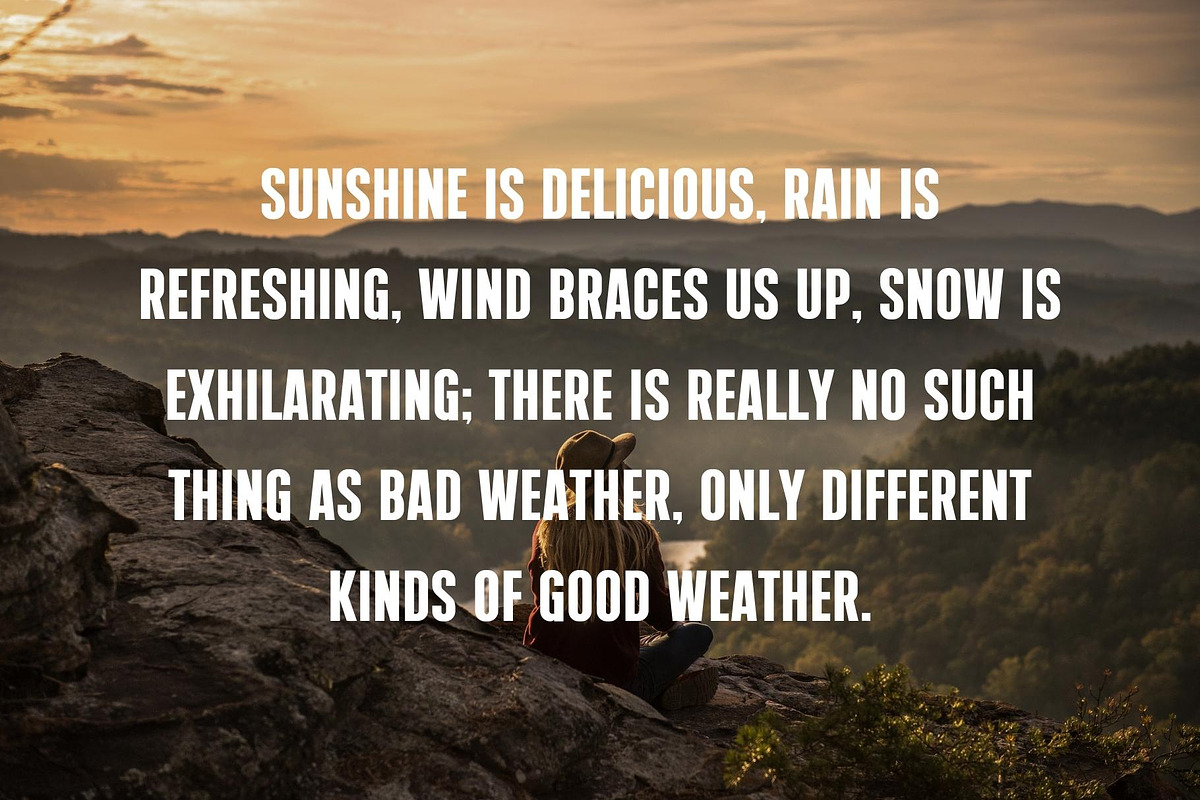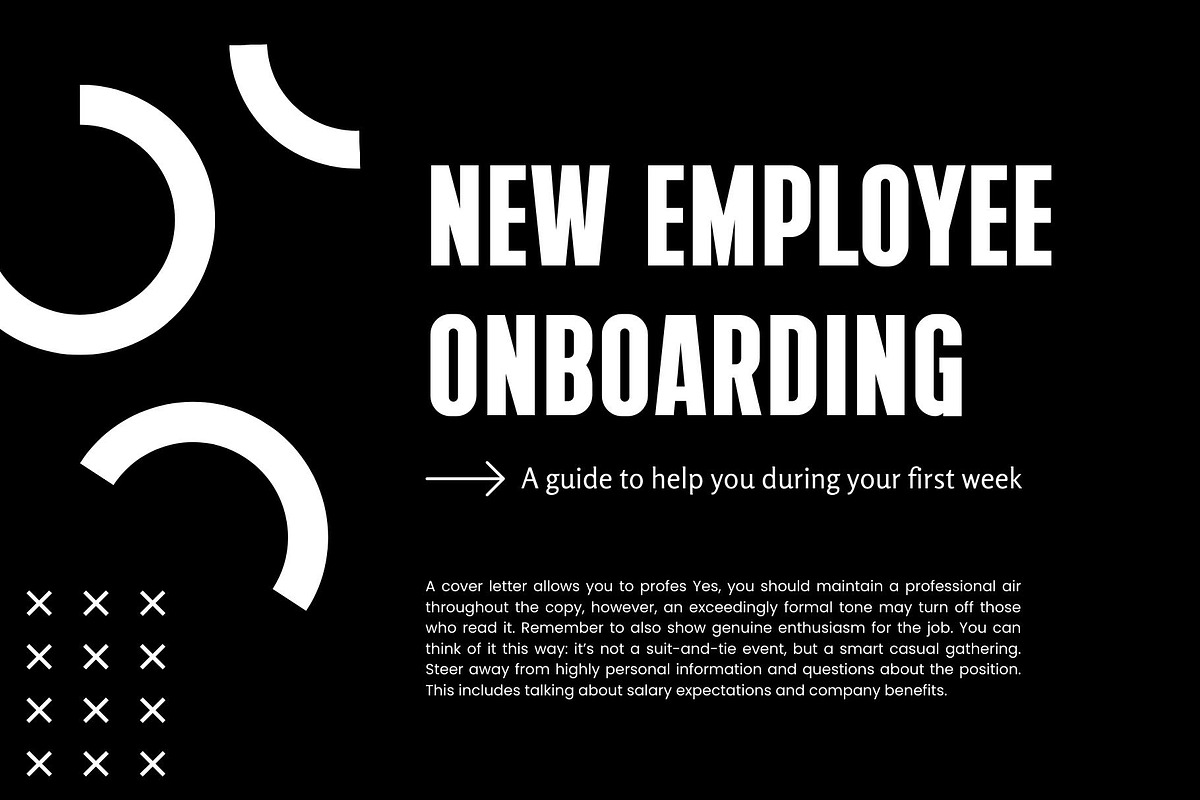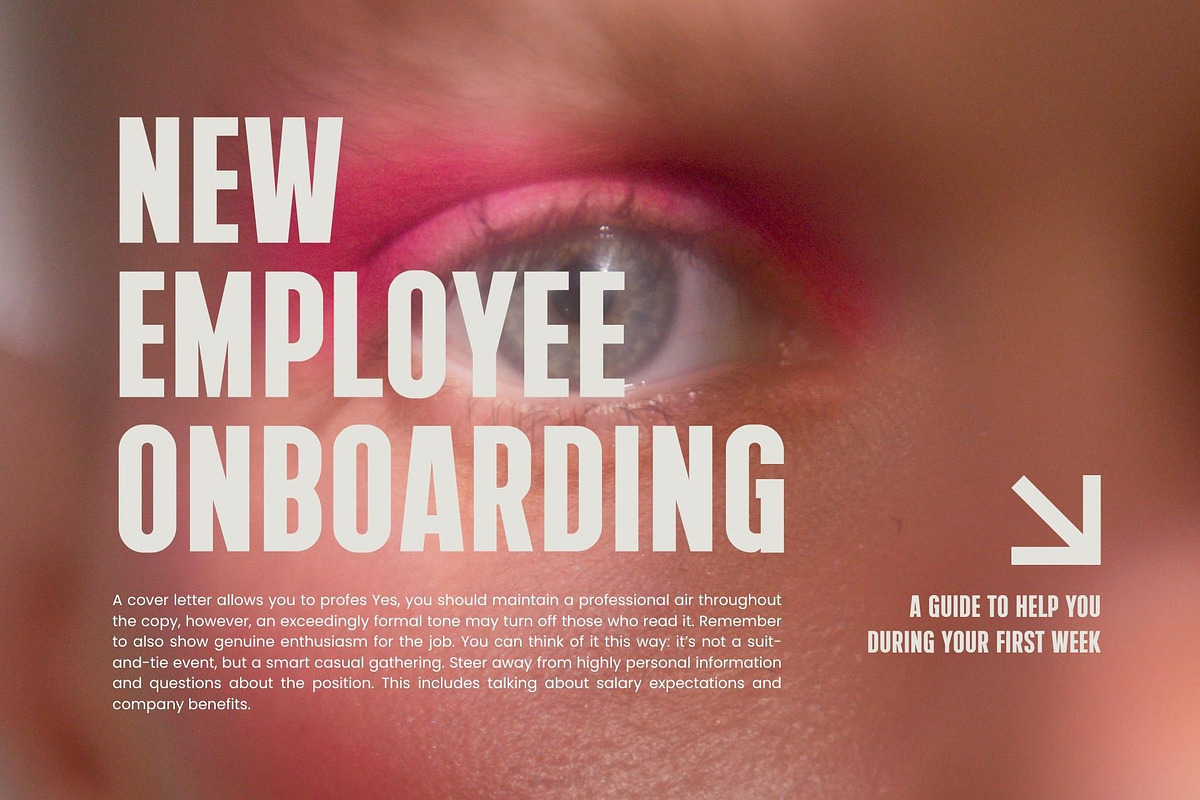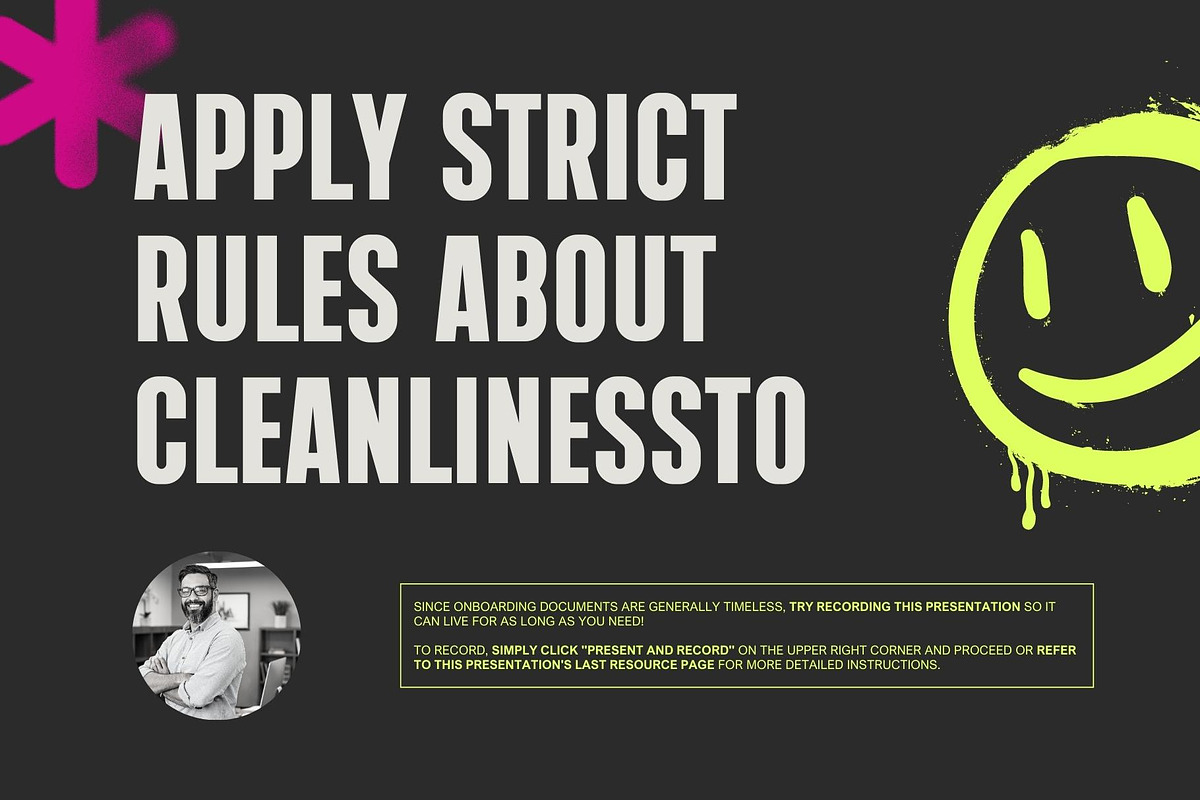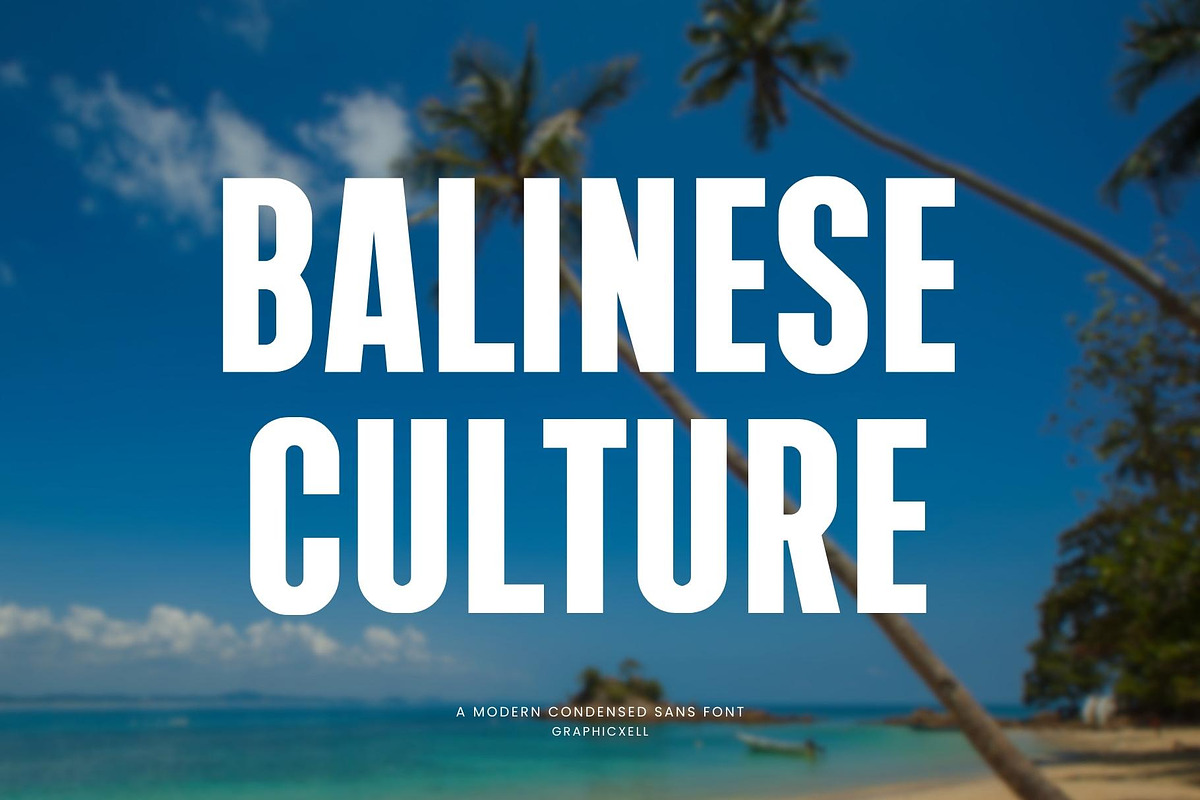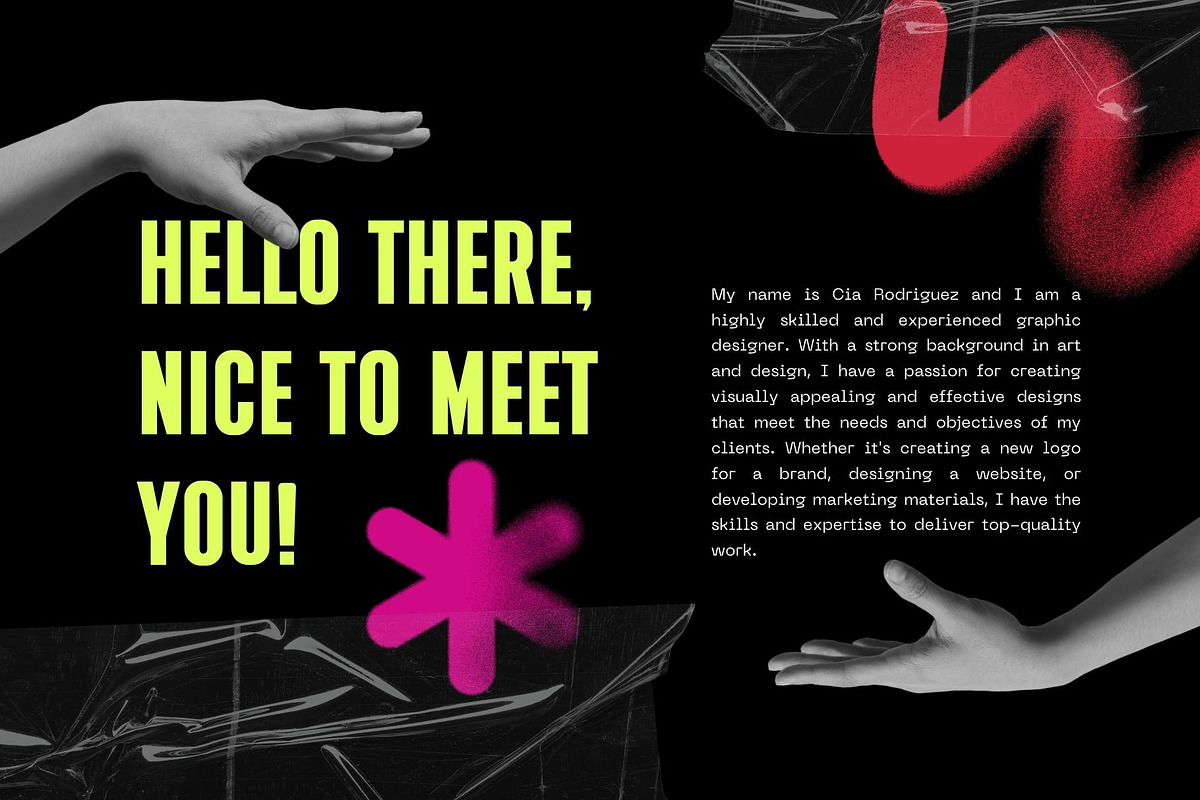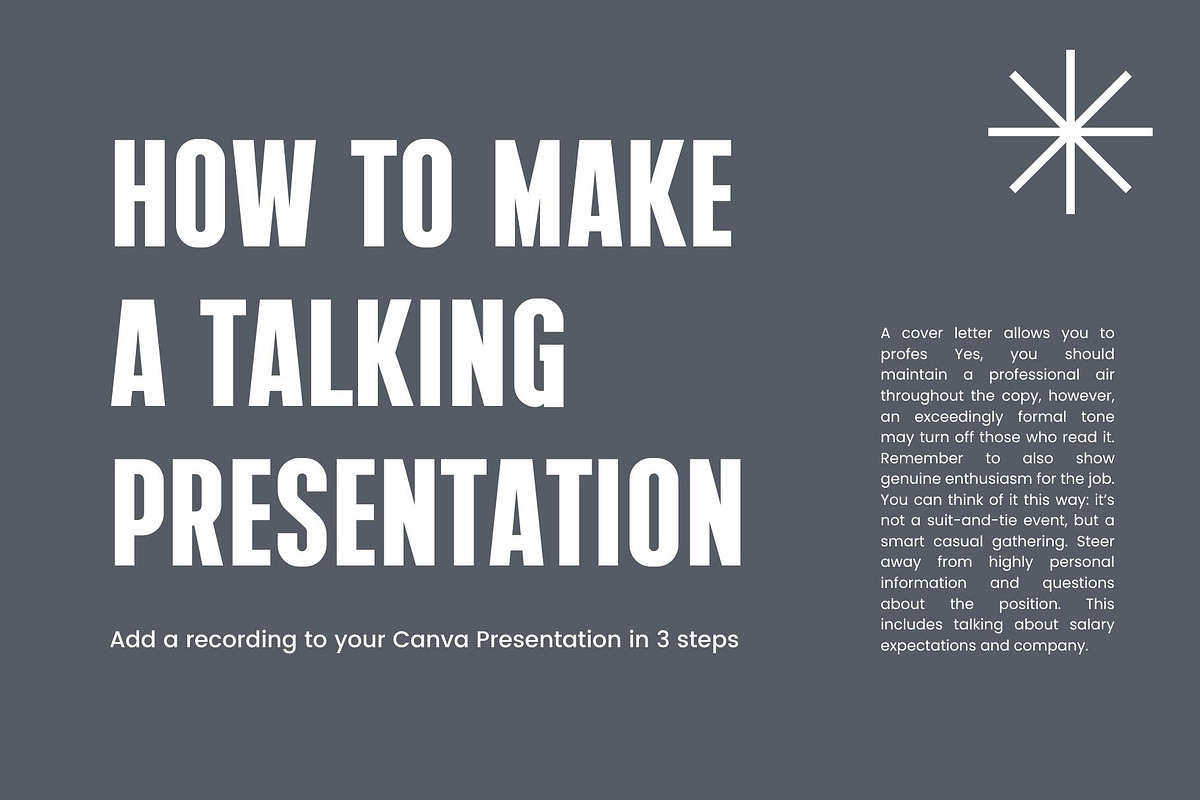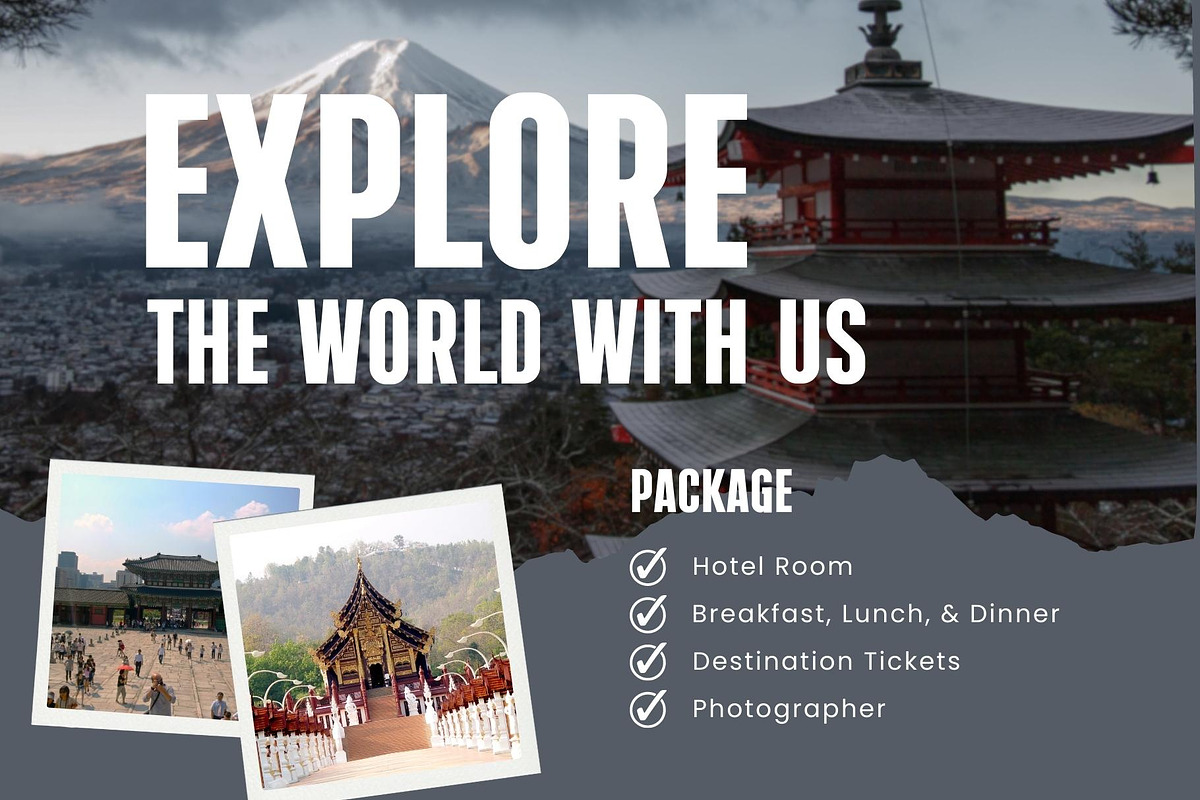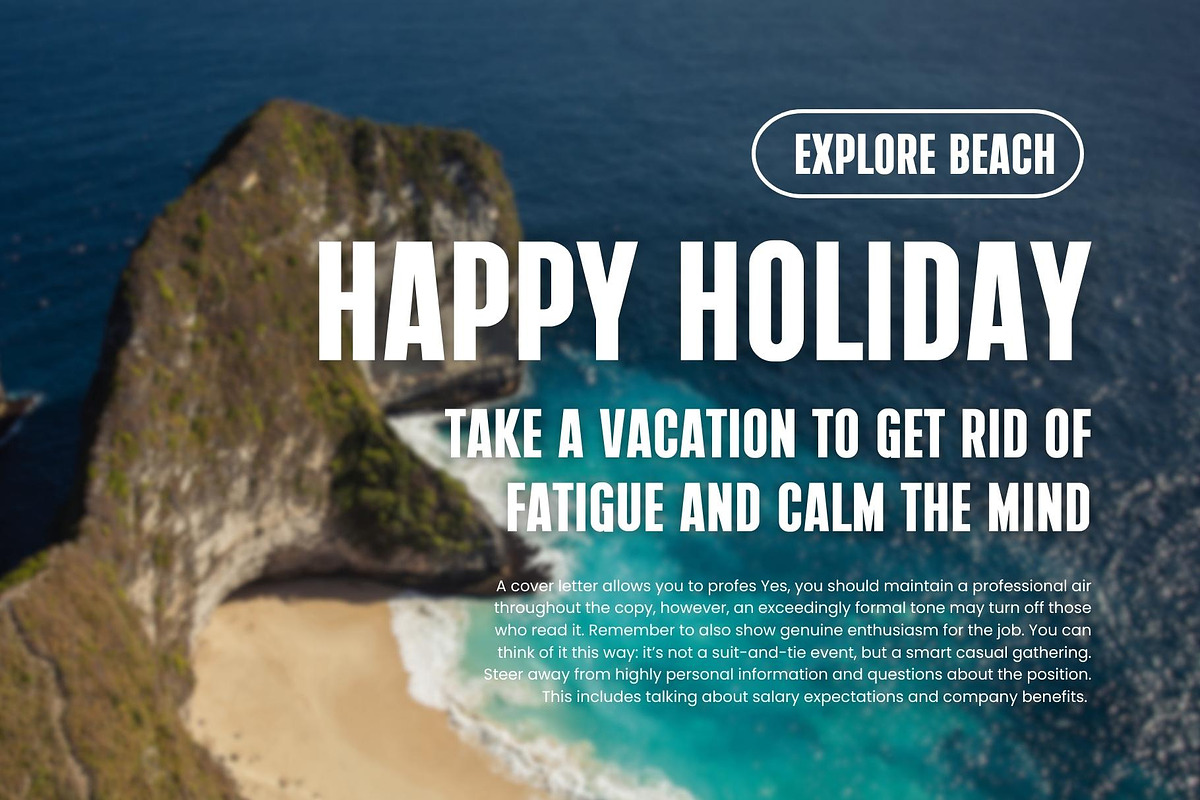
Balinese Culture Bold Sans Font
Balinese Culture Bold Sans Font Typeface inspired by the famous minimalist logo perfect for the purposes of designing templates, brochures, videos, advertising branding, logos, invitation, layout design, elegant crafting, beauty design and other